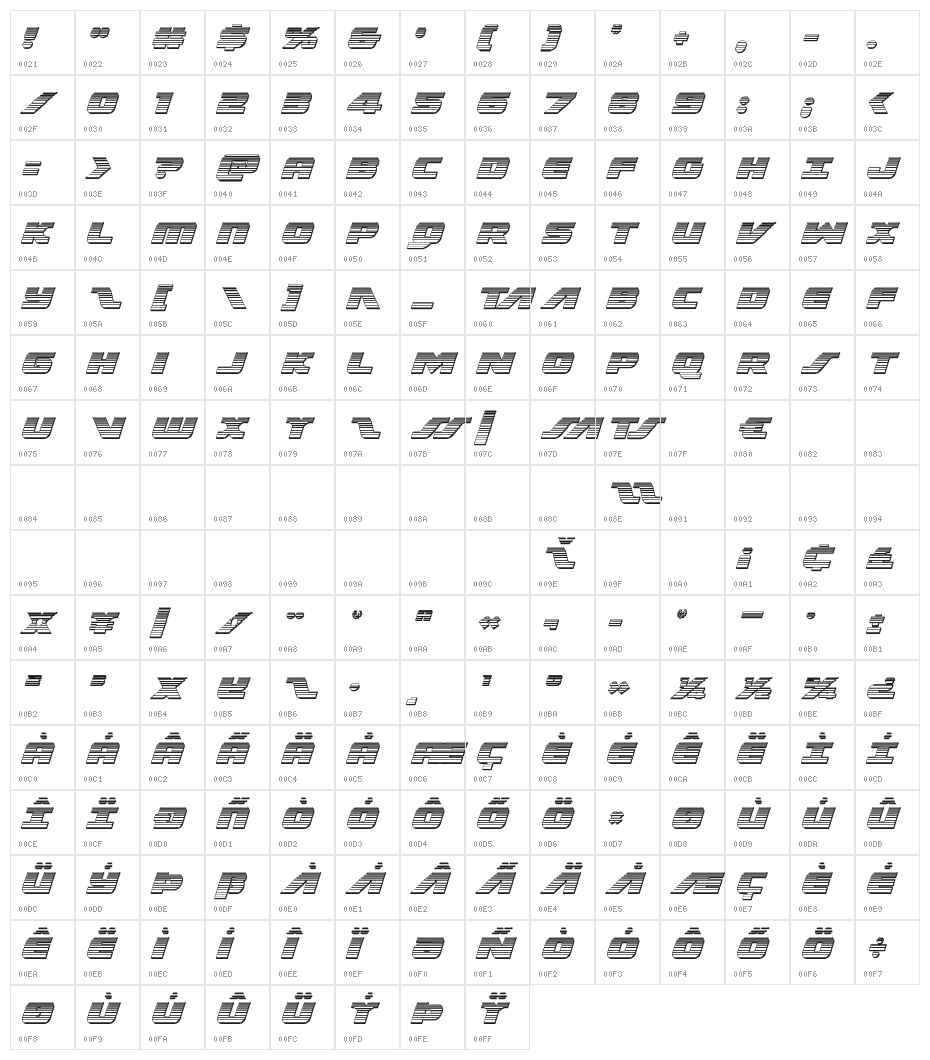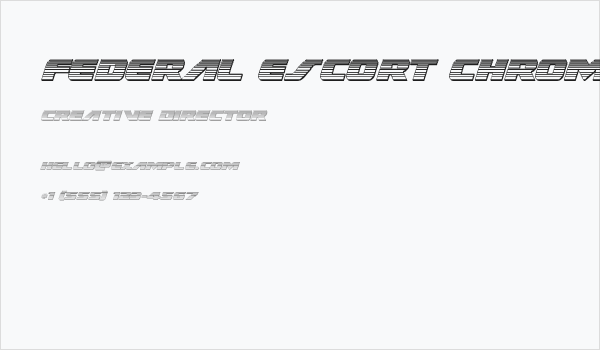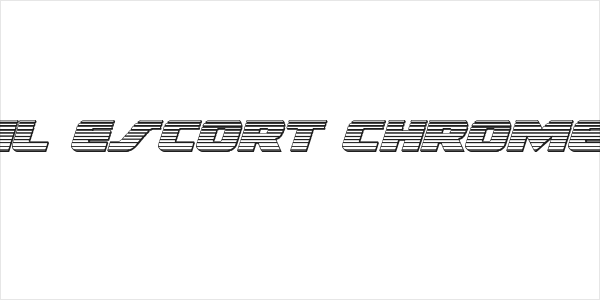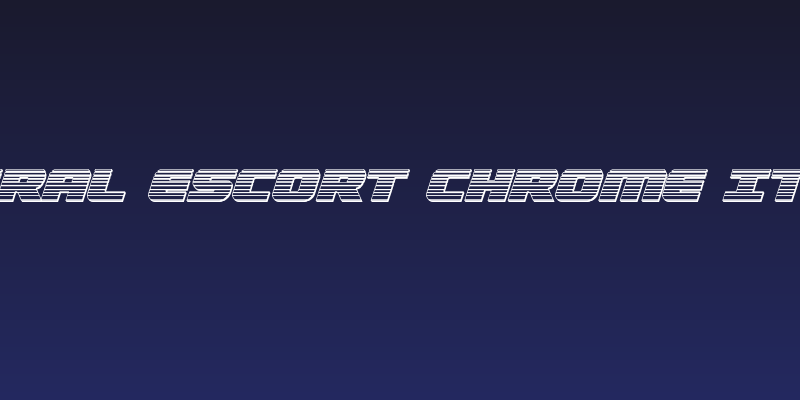
Federal Escort Chrome Italic Font
Federal Escort Chrome Italic Description
This font features a bold, futuristic design with a distinct chrome-like appearance. The characters are constructed with horizontal lines that create a sense of movement and speed, enhanced by the italic slant. The uppercase and lowercase letters maintain a consistent style, with sharp angles and a mechanical feel. The numbers and special characters follow the same design principles, ensuring uniformity across all glyphs. This font's unique style makes it stand out, ideal for projects that require a modern and dynamic look.
| Proposed Projects | Ideal for sci-fi themed projects, automotive branding, video game titles, or any design requiring a modern, dynamic aesthetic. |